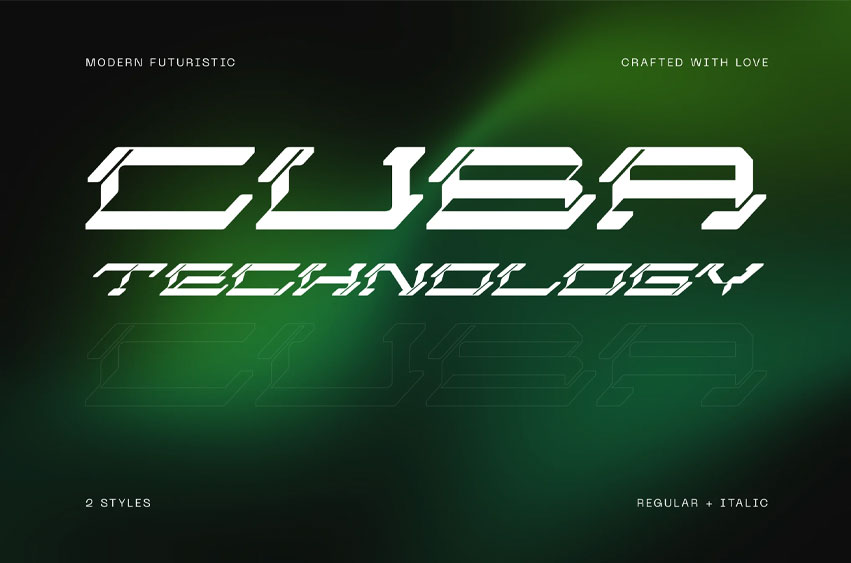
Cuba Technology Font offers beautiful typographic harmony for a diversity of design projects, including logos & branding, social media posts, advertisements & product designs.
Cuba Technology Font Preview